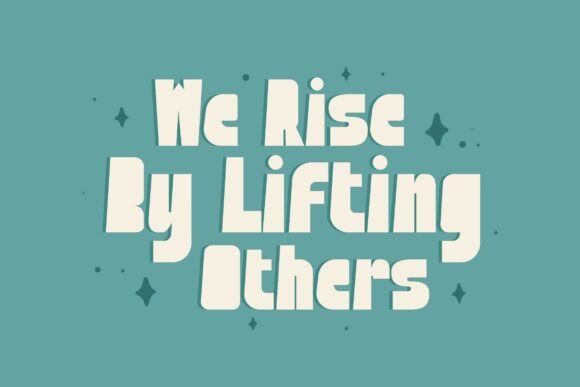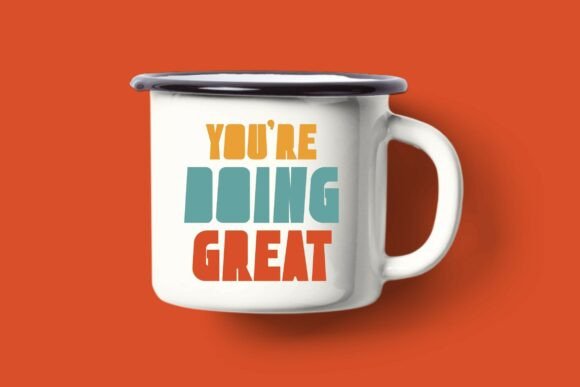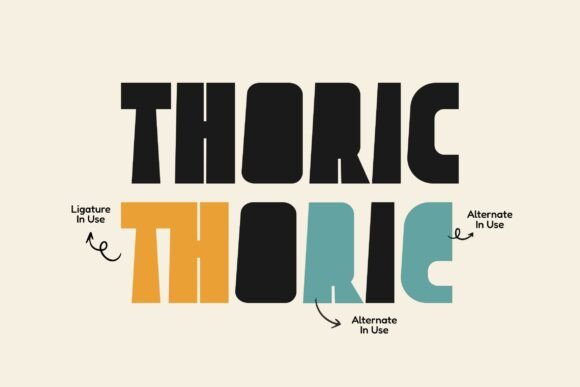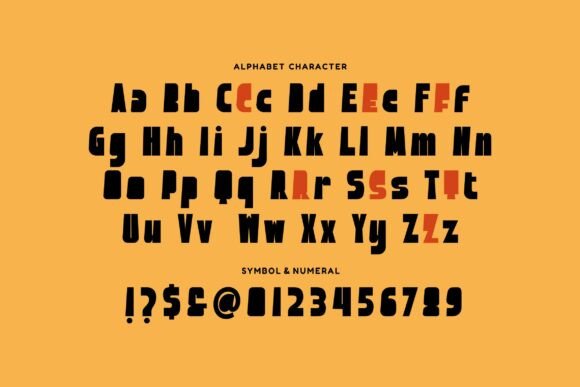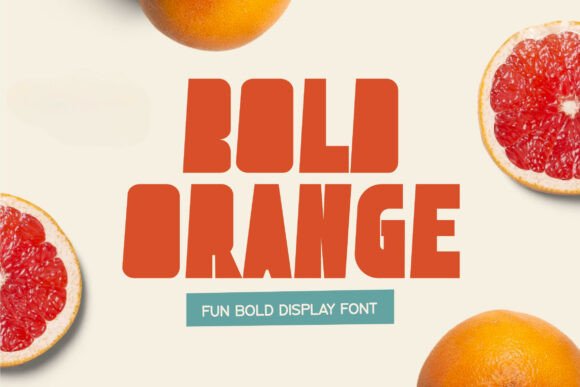
Introducing Bold Orange Font: The Ultimate Choice for Playful and Confident Designs
Are you looking for a font that can add a bold and playful touch to your designs? Look no further than Bold Orange Font! This fun and chunky font is perfect for creating eye-catching headlines, posters, logos, and merchandise designs that exude a strong, confident, and friendly vibe.
The Characteristics of Bold Orange Font
Bold Orange Font is a bold font with a blocky style and rounded corners that create a unique and playful personality. The font’s chunky design makes it perfect for headlines and titles, while its rounded corners add a touch of friendliness and approachability. The overall effect is a modern yet slightly retro feel that is sure to grab attention.
What Makes Bold Orange Font So Versatile?
Bold Orange Font is an incredibly versatile font that can be used in a wide range of design applications. Here are just a few examples of how you can use this font to elevate your designs:
- Headlines and Titles: Use Bold Orange Font to create bold and eye-catching headlines and titles that grab attention and draw the reader in.
- Posters and Flyers: Create bold and colorful posters and flyers that showcase your brand’s personality and style.
- Logos and Branding: Use Bold Orange Font to create a bold and memorable logo that reflects your brand’s values and personality.
- Merchandise Design: Design eye-catching mugs, t-shirts, and other merchandise that showcases your brand’s style and personality.
- Packaging: Use Bold Orange Font to create bold and eye-catching packaging that stands out on store shelves.
Why Choose Bold Orange Font?
So why choose Bold Orange Font over other fonts? Here are just a few reasons why this font stands out:
- Unique and Playful Personality: Bold Orange Font has a unique and playful personality that is sure to grab attention and leave a lasting impression.
- Modern yet Retro Feel: The font’s chunky design and rounded corners create a modern yet slightly retro feel that is perfect for brands that want to stand out.
- Highly Versatile: Bold Orange Font can be used in a wide range of design applications, from headlines and titles to logos and branding.
- Easy to Read: Despite its bold and chunky design, Bold Orange Font is easy to read and understand, making it perfect for designs that need to communicate a message quickly and effectively.
Tips for Using Bold Orange Font
Here are a few tips for using Bold Orange Font in your designs:
- Use it Boldly: Bold Orange Font is designed to be used boldly, so don’t be afraid to experiment with different sizes and colors.
- Pair it with Other Fonts: Bold Orange Font pairs well with other fonts, so try pairing it with a clean and simple font to create contrast and visual interest.
- Experiment with Colors: Bold Orange Font looks great in a range of colors, so don’t be afraid to experiment and find the perfect color for your design.
Bold Orange Font is a fun and playful font that is perfect for designers and crafters who want to add a bold and confident touch to their designs. With its chunky design, rounded corners, and modern yet retro feel, this font is sure to grab attention and leave a lasting impression. Whether you’re designing headlines, posters, logos, or merchandise, Bold Orange Font is the perfect choice.